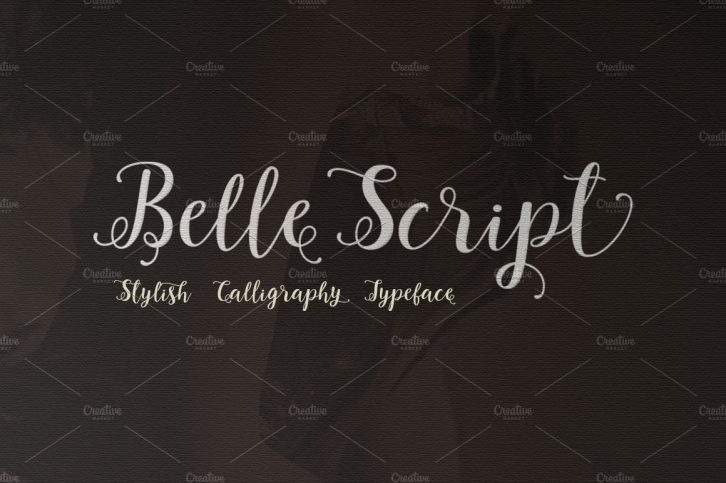
Belle Script is handwritten style font, including initial and terminal letters, alternates, ligatures. More than 400+ glyphs. hope you like it, thank you.